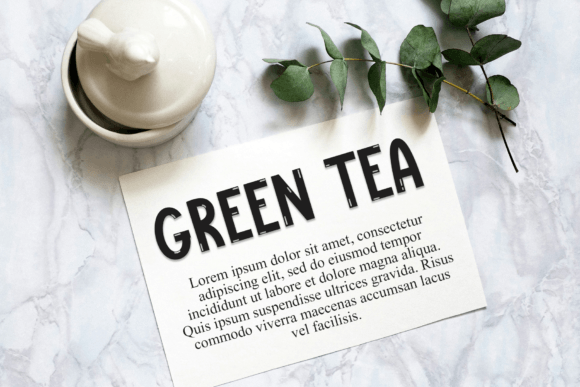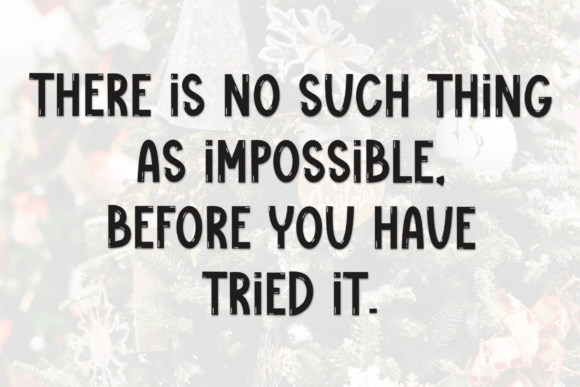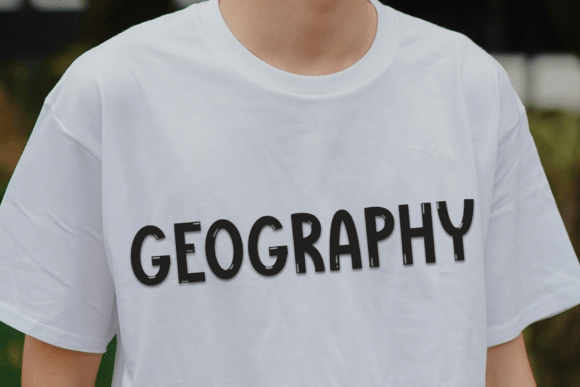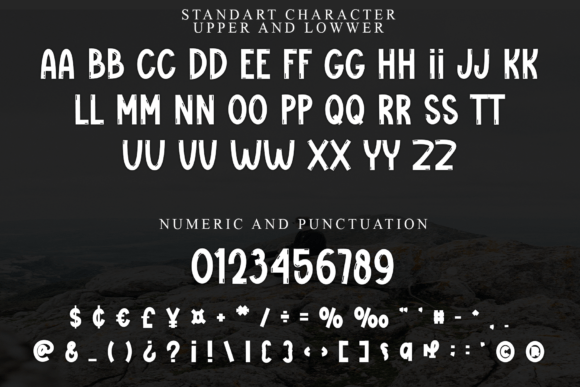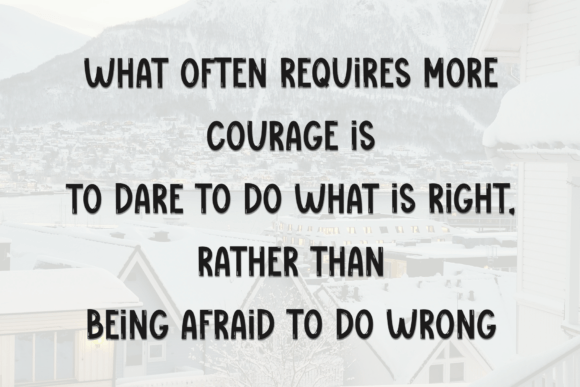
Introduction to Monster Winter Font
As the snowflakes gently fall outside, I find myself craving a creative spark to match the winter wonderland scene. It’s moments like these that I stumble upon the perfect design resource – a font that captures the essence of the season. This time, it’s the Monster Winter Font that’s caught my attention. With its bold and playful style, it’s the perfect addition to any winter-themed design.
As a designer, I know how valuable it is to have a high-quality font that can elevate a creative project. And that’s exactly what Monster Winter Font offers – a fun and frosty look that’s easy to read and full of personality. Whether you’re working on a holiday card or a winter-themed design, this font is sure to bring a touch of magic to your project.
Key Features of Monster Winter Font
- High-quality, free font perfect for any creative project, especially those with a winter or holiday theme.
- Unique, bold, and playful design elements make it an excellent resource for designers looking to add a fun touch to their projects.
Honest Review: Monster Winter Font
I recently came across the Monster Winter Font and was excited to try it out for my next design project. As a designer, I appreciate high-quality design resources that can elevate a creative project. The Monster Winter Font does not disappoint.
What works well is the font’s unique, wintery aesthetic, which is perfect for any design project that needs a touch of the season. The font is also a free download, making it an attractive option for designers on a budget. Another benefit is the transparent background, which allows for seamless integration into any design.
- ✨ Unique, wintery aesthetic
However, I did encounter a few limitations. The font is not ideal for body text, as it can be quite ornate and may be difficult to read in large quantities. Additionally, some characters may not render correctly on certain platforms.
- ⚠️ Not ideal for body text due to ornate design
Overall, I’m impressed with the Monster Winter Font and would recommend it for any design project that requires a touch of winter charm. Just be mindful of its limitations and use it judiciously.
The Monster Winter Font is a versatile design resource that can be used in a variety of creative projects, including social media graphics, posters, flyers, and more. It’s a great choice for designers who want a high-quality, free download font that can be used in a variety of design applications.